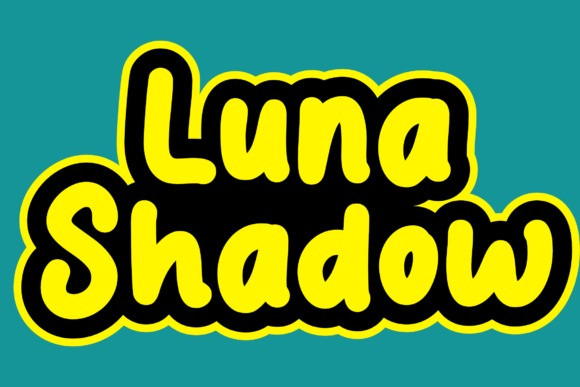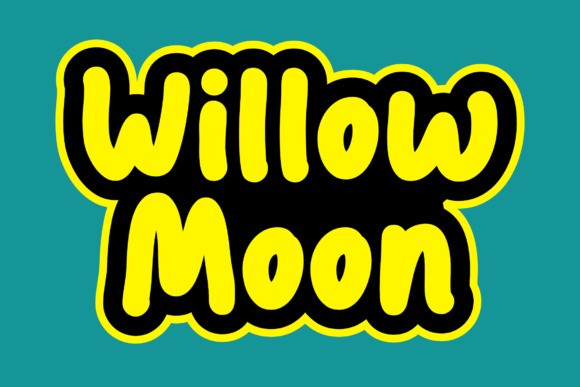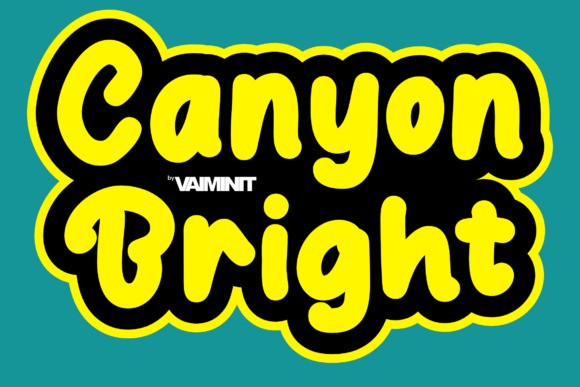
Canyon Bright Font
Canyon Bright Font, an enchanting display font with a distinctive spark that is sure to illuminate your designs. Utilize it with assurance and you’ll surely be captivated by the extraordinary results. Its quirky yet charming nature is the perfect ingredient to add a dash of sunshine to any creative endeavor. Each stroke of CanyonBright radiates charisma, ensuring your designs not only speak but also shine. Unleash the potential of your designs with this utterly whimsical font. Experiment fearlessly, and let Canyon Bright bring your creative vision to life. You won’t just like the results, you’ll adore them.